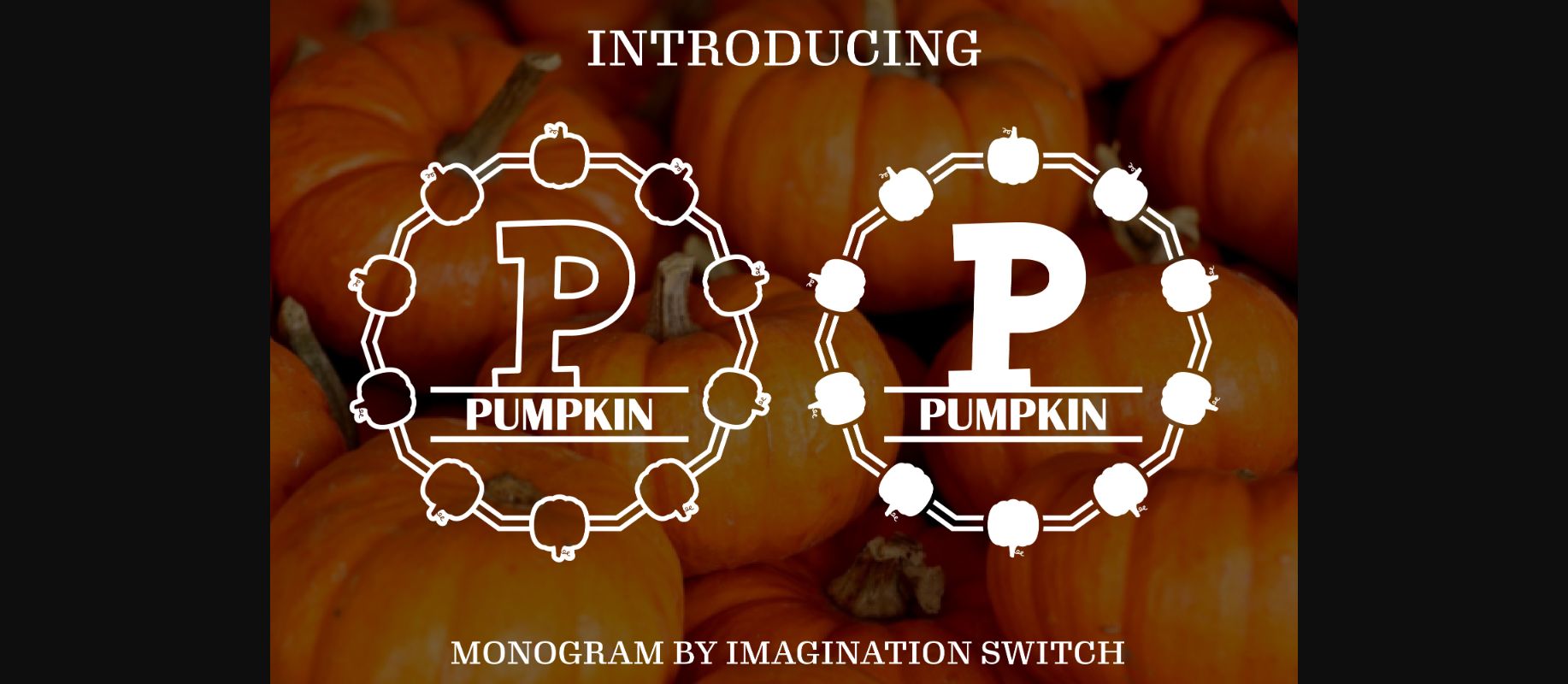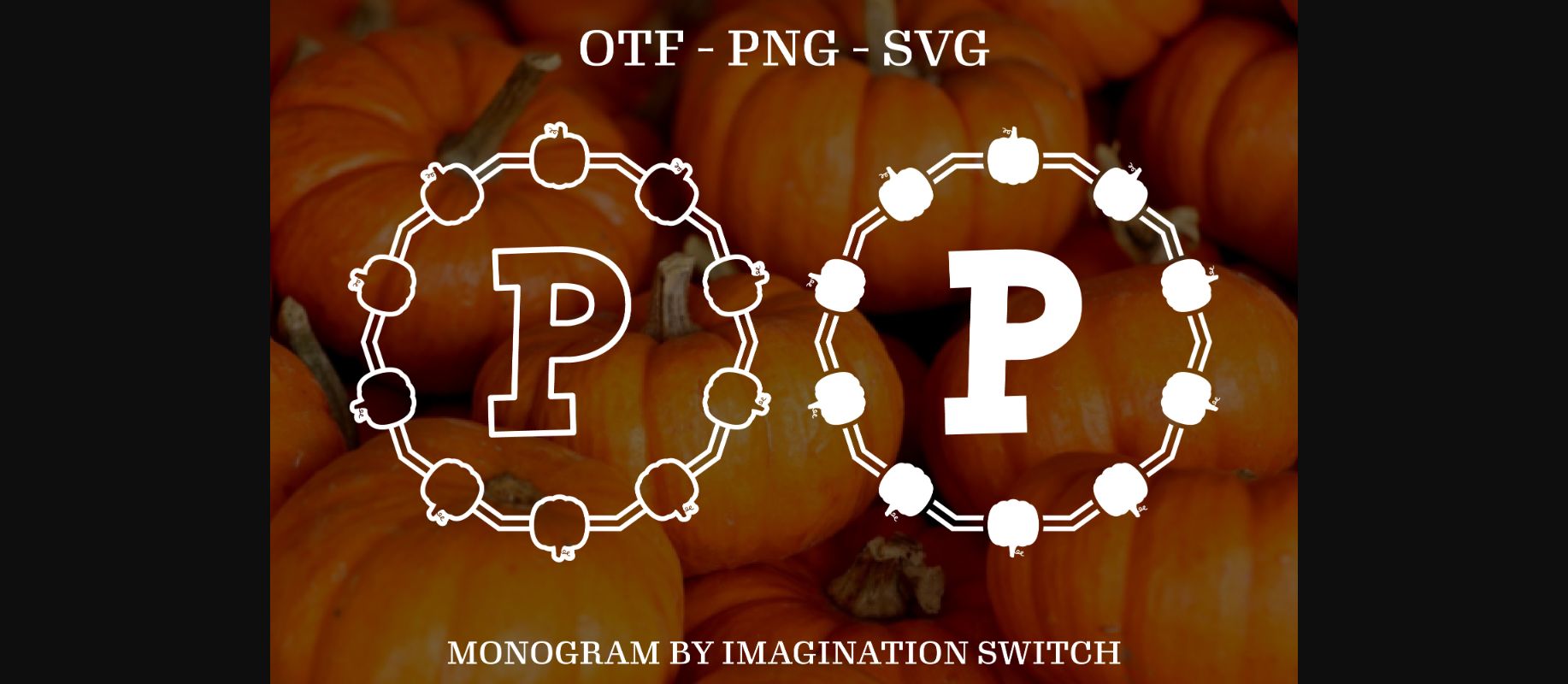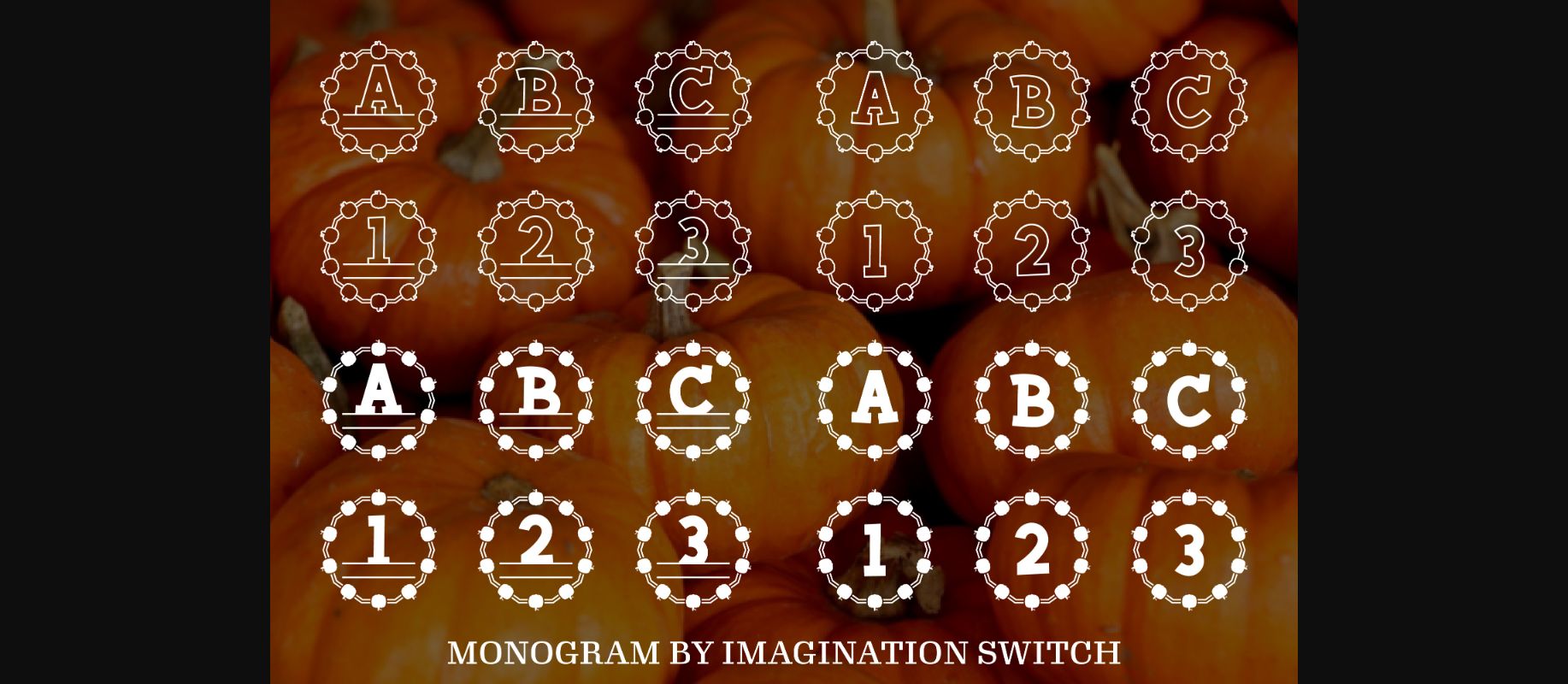
Pumpkin Font
About Pumpkin Font
This font is an exclusive typographic creation with an elegant monogram style. With a complete set of characters, including uppercase, lowercase, and numbers, this font is meticulously designed to provide ease of use across various design projects.
The uniqueness of this font lies in its artistic monogram design, allowing you to create beautiful and personalized letter combinations. Each character presents an exclusive impression and reflects a touch of elegance.
The Monogram Font is suitable for a variety of purposes, from print designs such as printing to merchandise design and branding. Its readability and versatility make it a perfect choice to add a touch of class to your projects.
With this font, you can celebrate personal style and convey elegant and exclusive messages in every design you create.